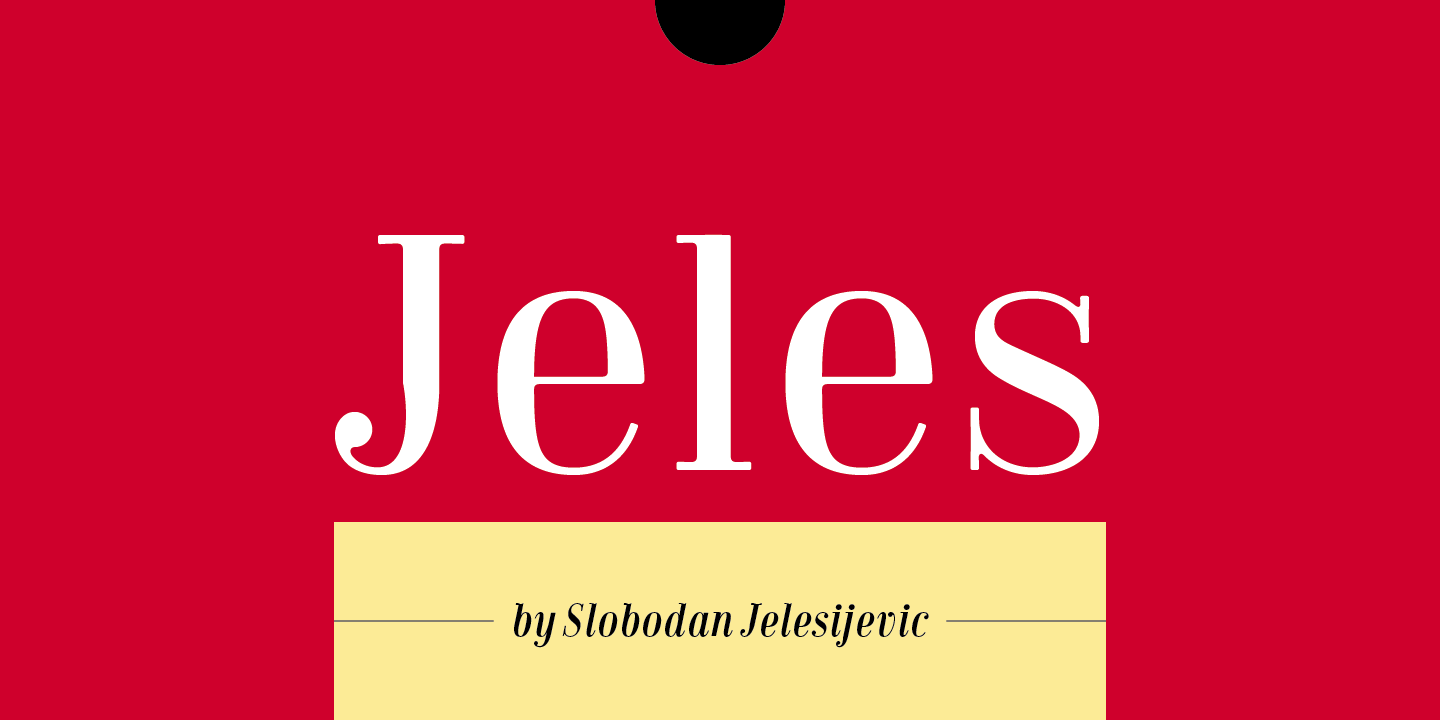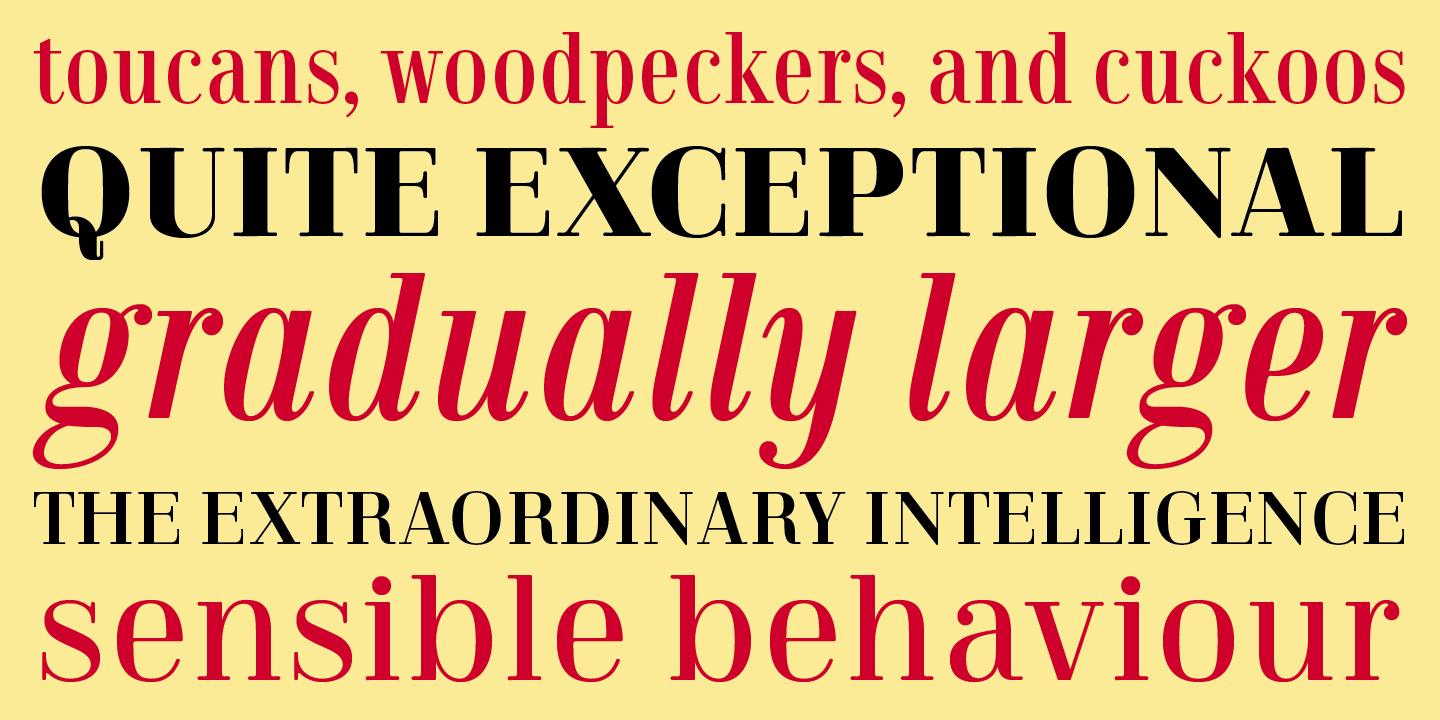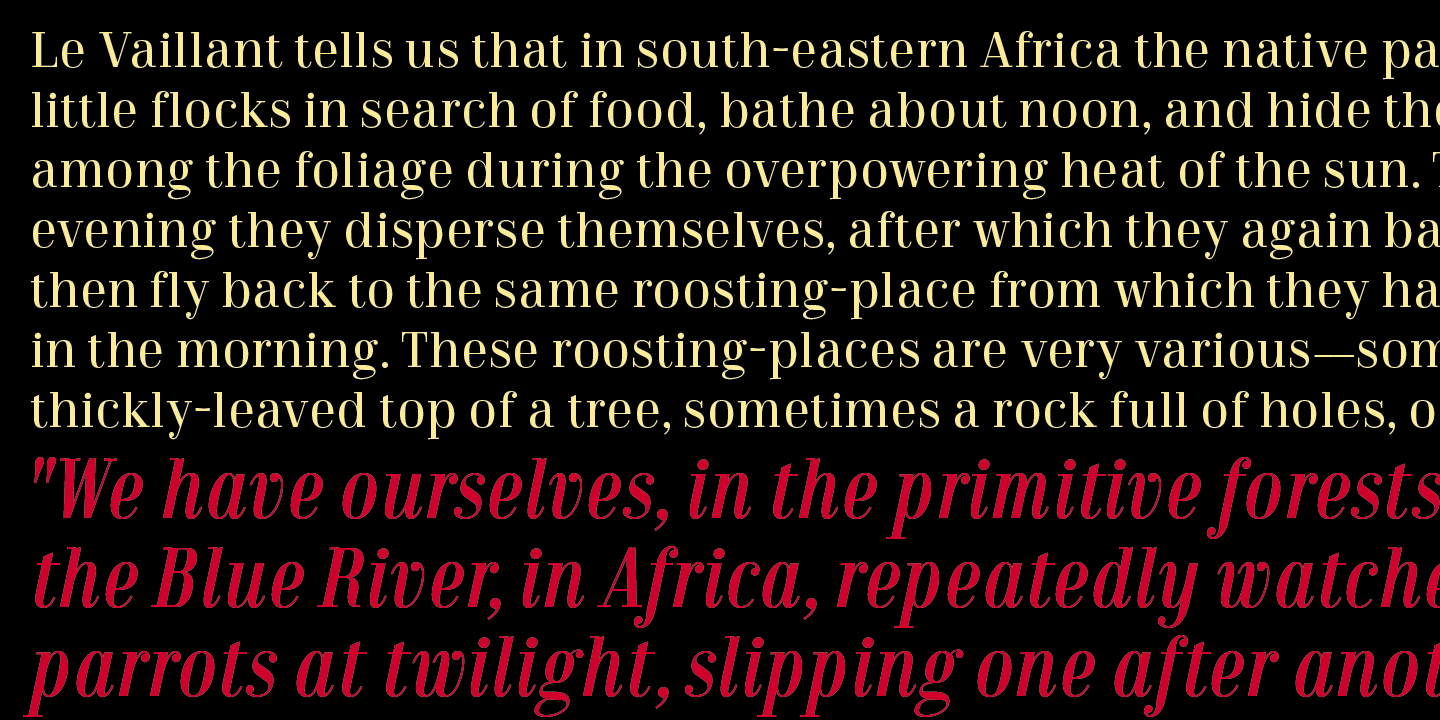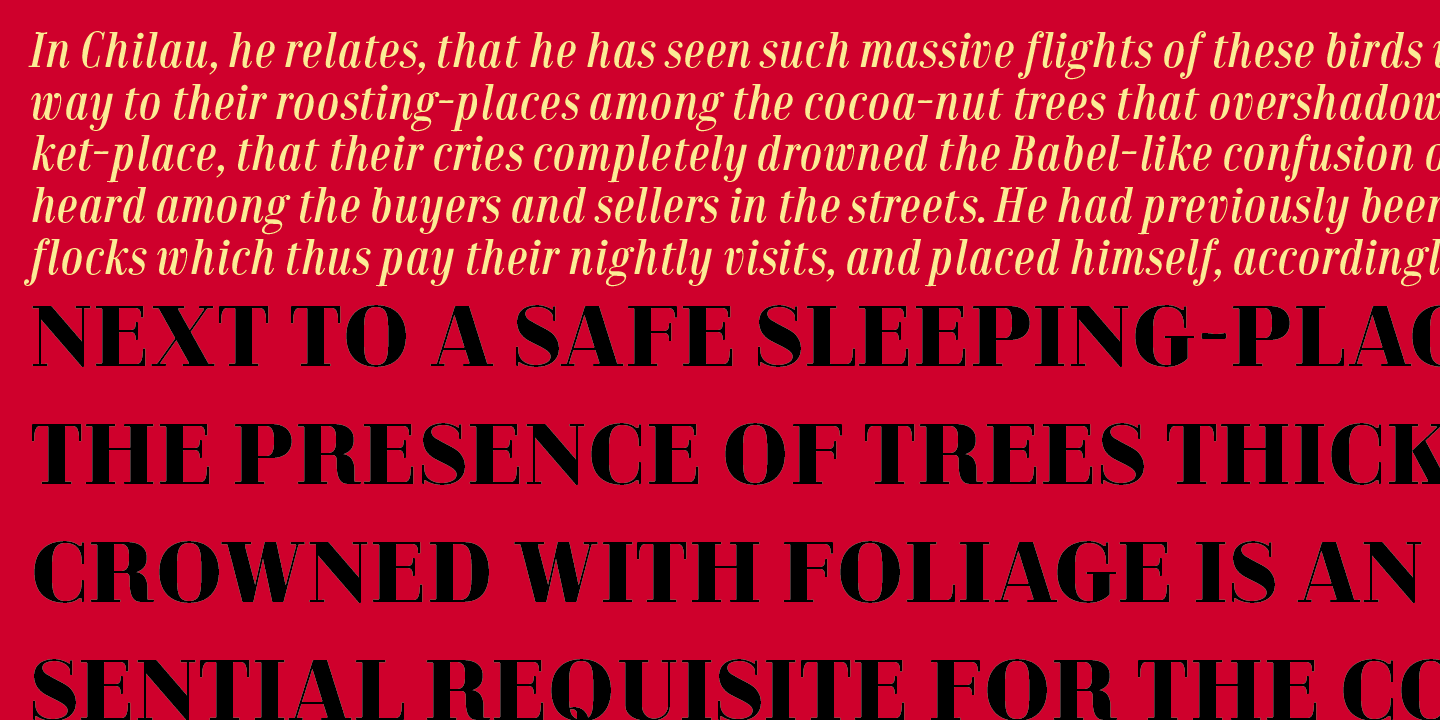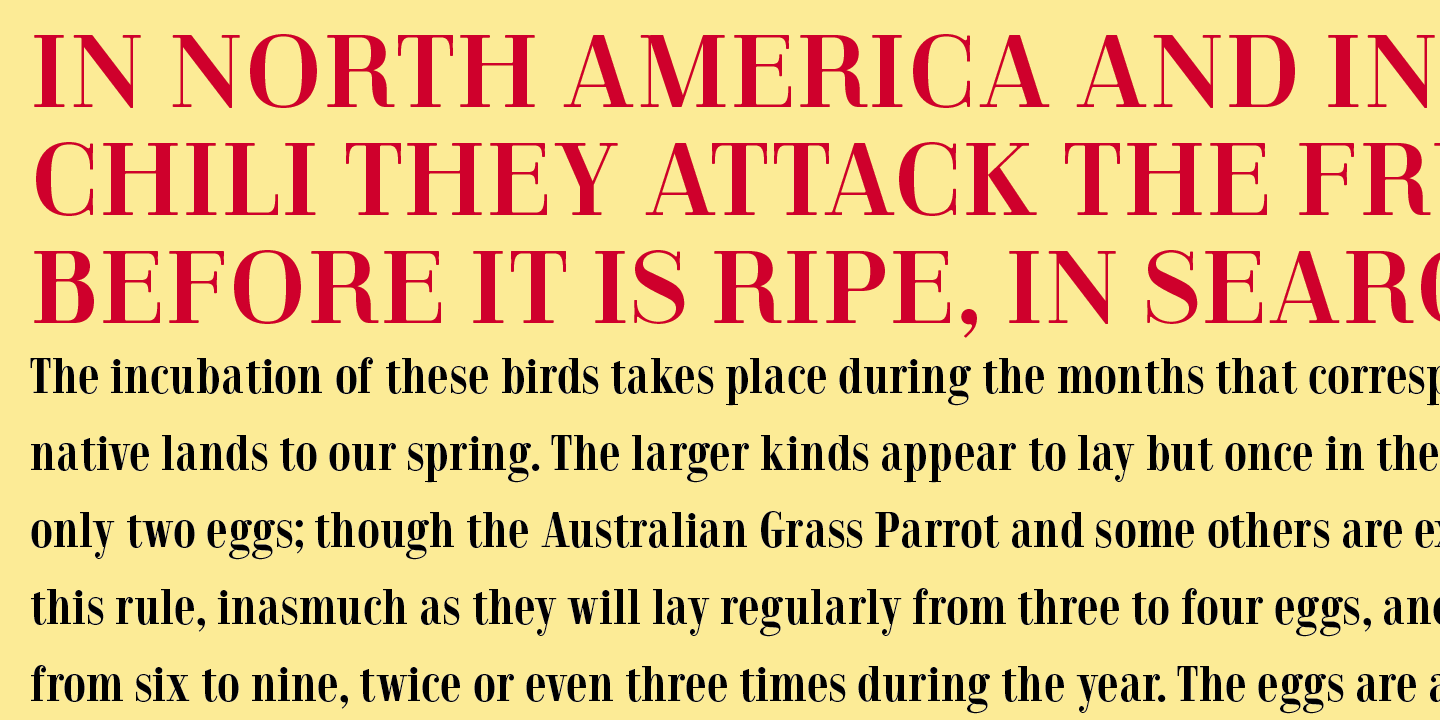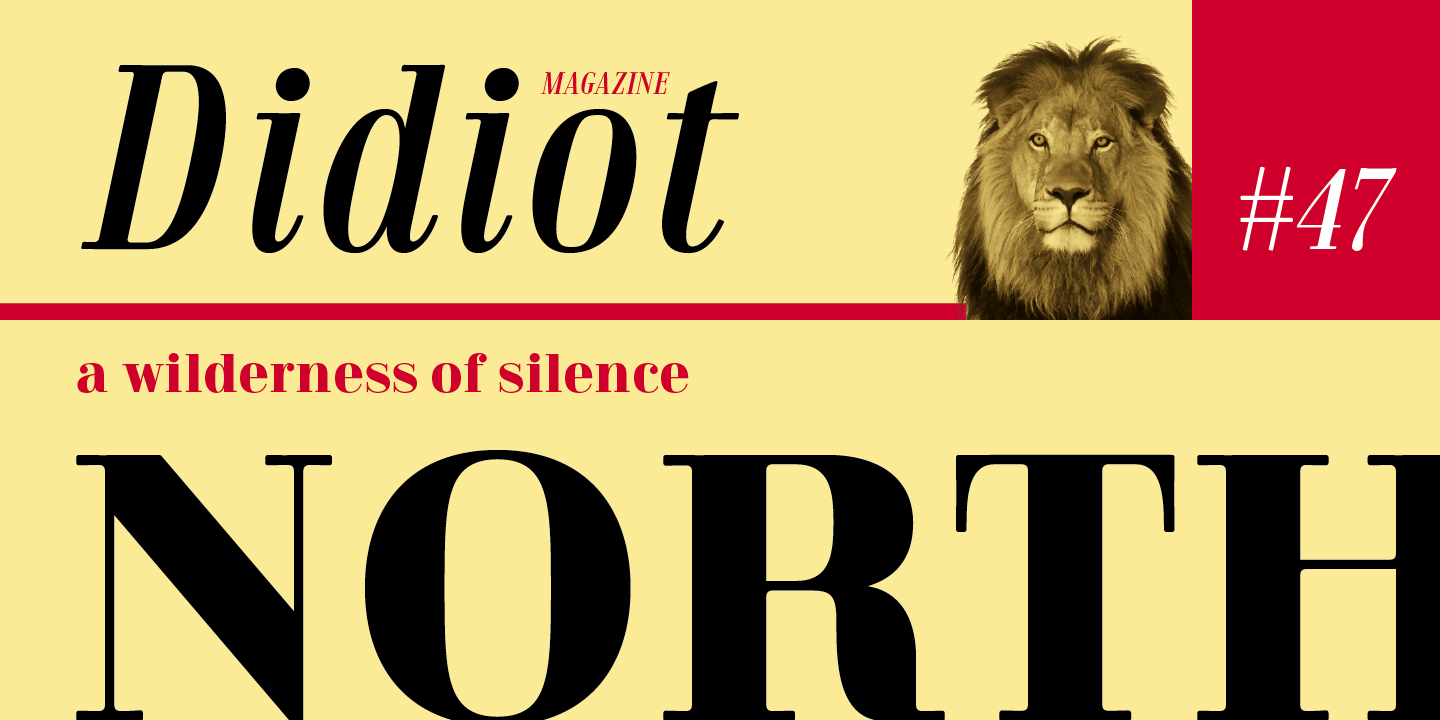
Inheriting the beauty and style of old type classics from this genre, Jeles is blended with very elegant modern approach featuring soft corners, round slab serifs and tasty ball terminals.